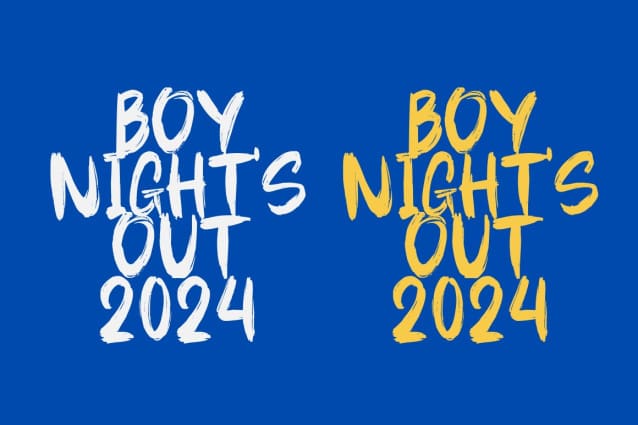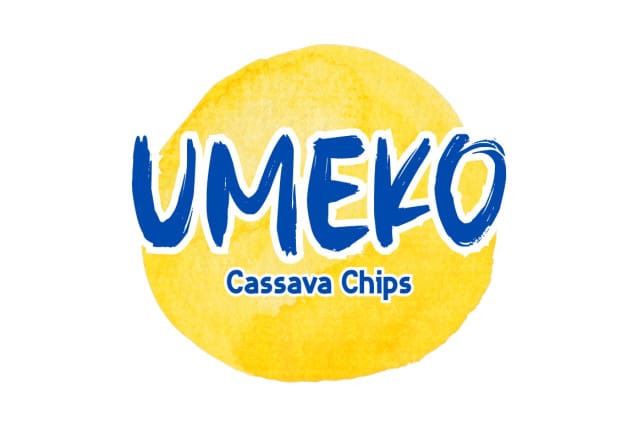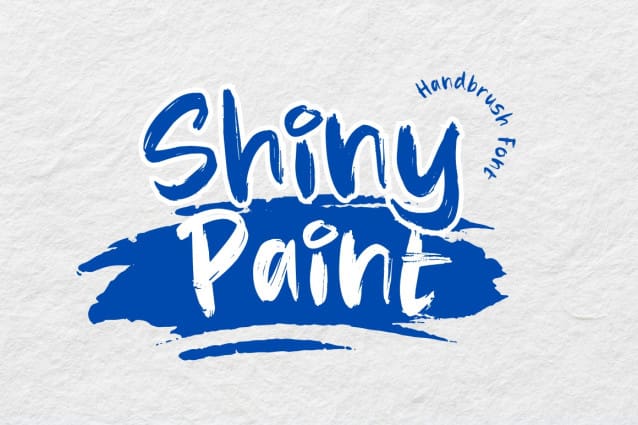
Shiny Paint Font
Shiny Paint Font is a vibrant handbrush font that captures the raw, artistic energy of brush strokes. With its textured, dynamic characters, this font adds a bold, handcrafted feel to any design. Perfect for posters, logos, packaging, and creative projects that need a splash of personality and authenticity. Shiny Paint brings a lively, expressive touch to your work, making it stand out with style.